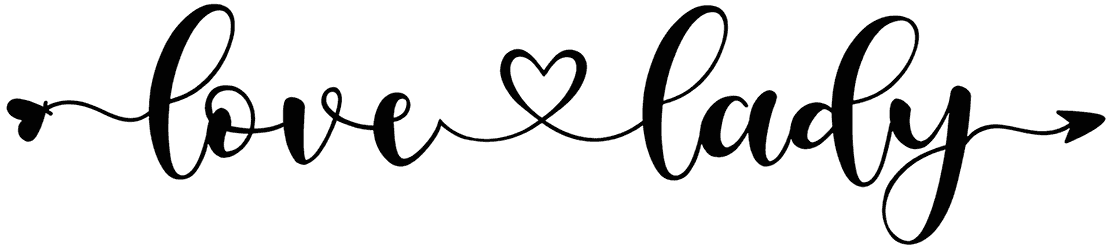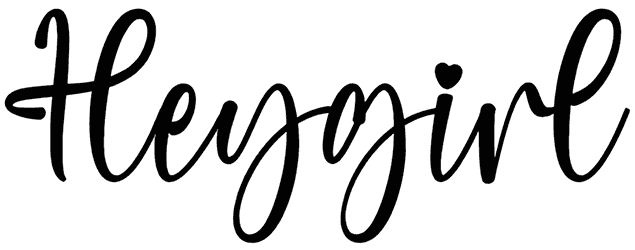
Baby Camila Font
Letterforms play a key role in turning a simple design into an adorable masterpiece, and this purpose is available with this cute font. You have all the playful characters of the Baby Camila font in two different versions. This heart font is going to make your wedding Instagram post so sweet and memorable.
Designed by: Nirmala Creative